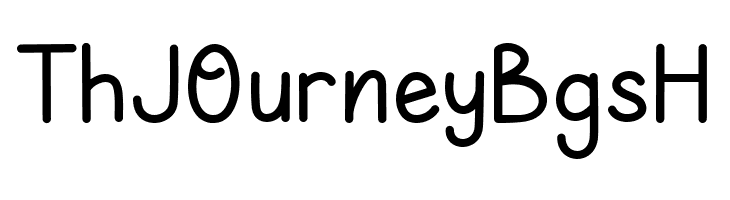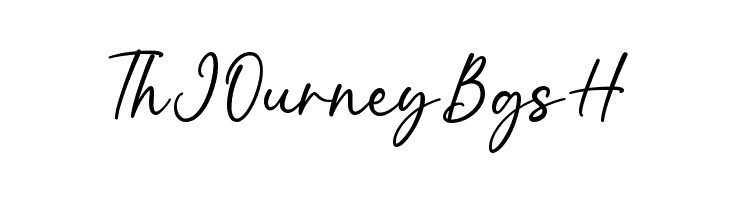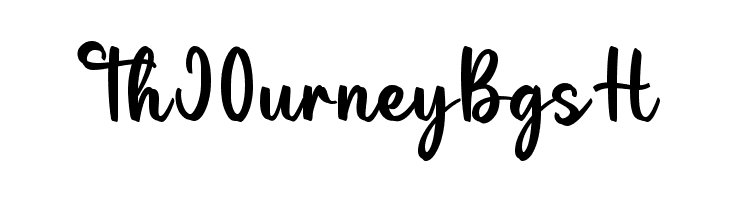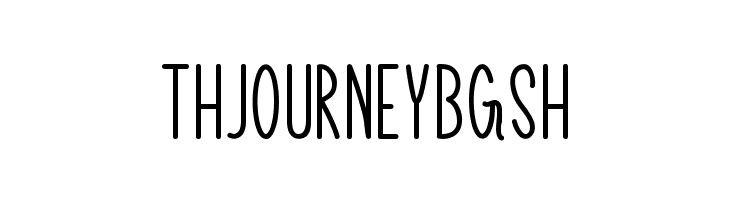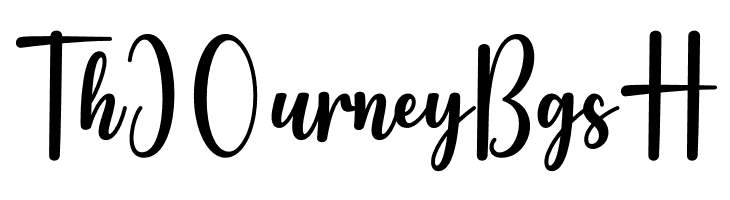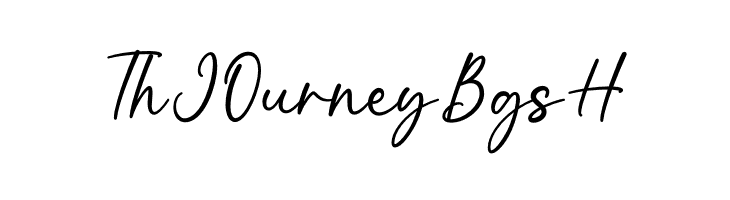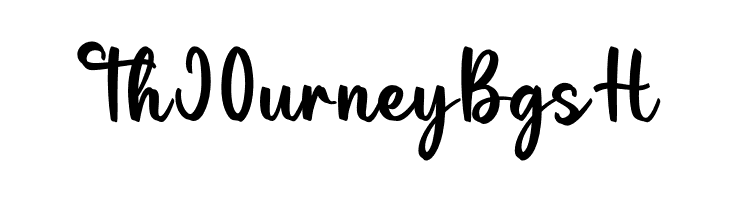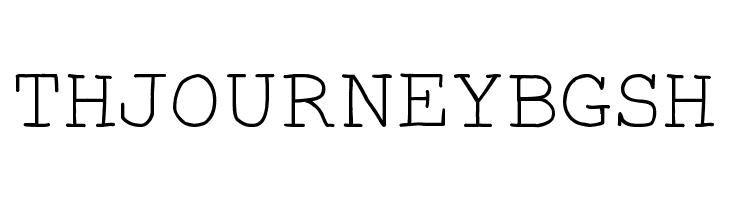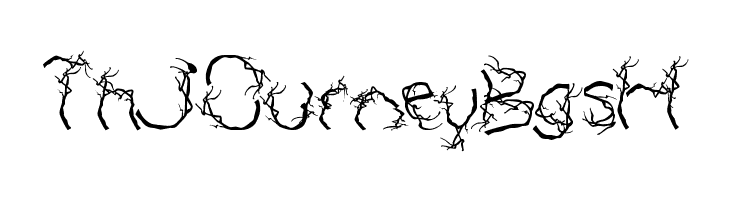
• AUTUMN
A decorative font with characters resembling twisted branches, ideal for nature or fantasy themes.
• Autumn
A playful, hand-drawn font with a whimsical and informal style.
• Autumn Arbor
A playful, narrow font with consistent strokes and a modern, friendly style.
• Autumn Beautiful
A casual, elegant handwritten font with smooth, flowing lines and a slightly slanted style.
• Autumn Beautiful
A casual and elegant handwritten font with smooth, flowing lines.
• Autumn Beauty
A playful and elegant script font with a handwritten feel.
• Autumn Beauty
A playful, whimsical script font with a handwritten feel.
• Autumn Calling
A bold, cursive script font with a playful, handwritten style.
• Autumn Calling
A playful, flowing script font with a handwritten style.
• Autumn Ceria
A playful, hand-drawn font with rounded edges and a whimsical style.